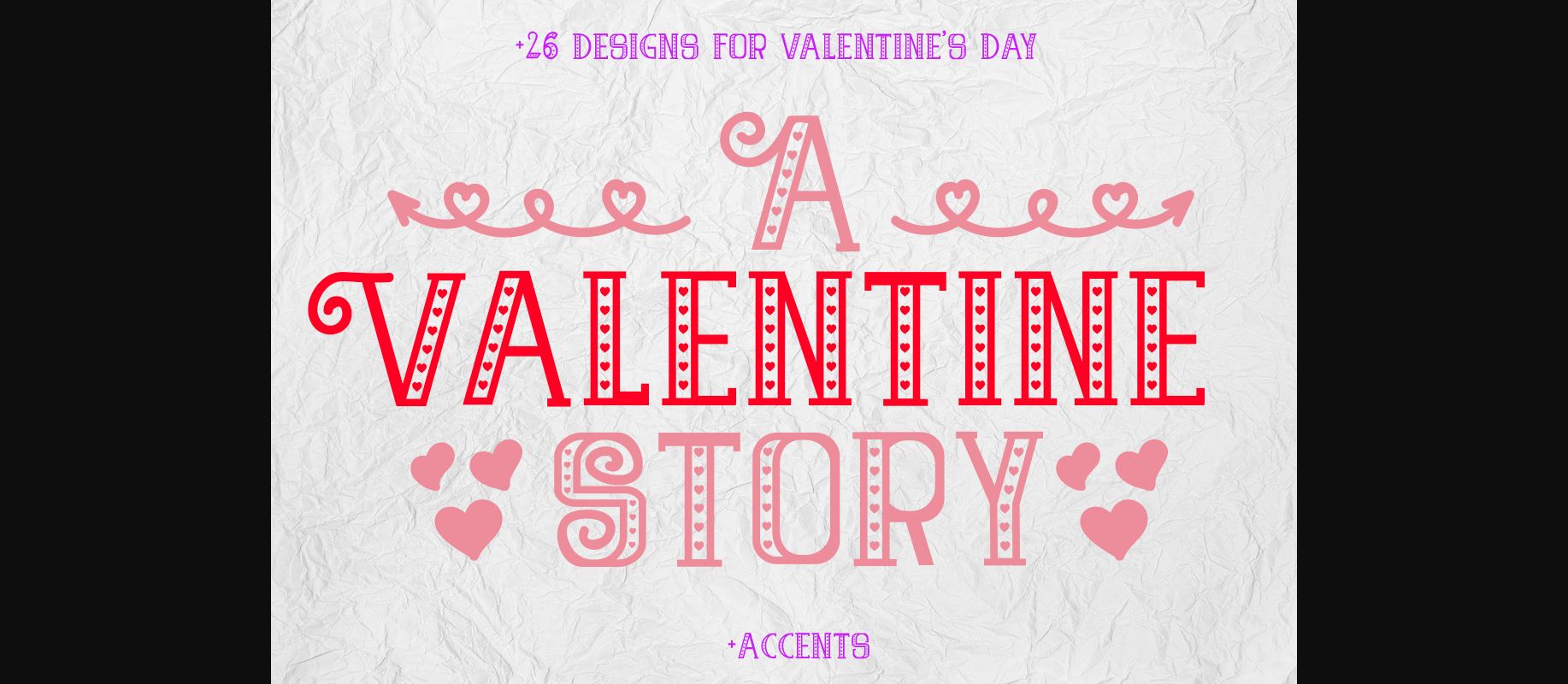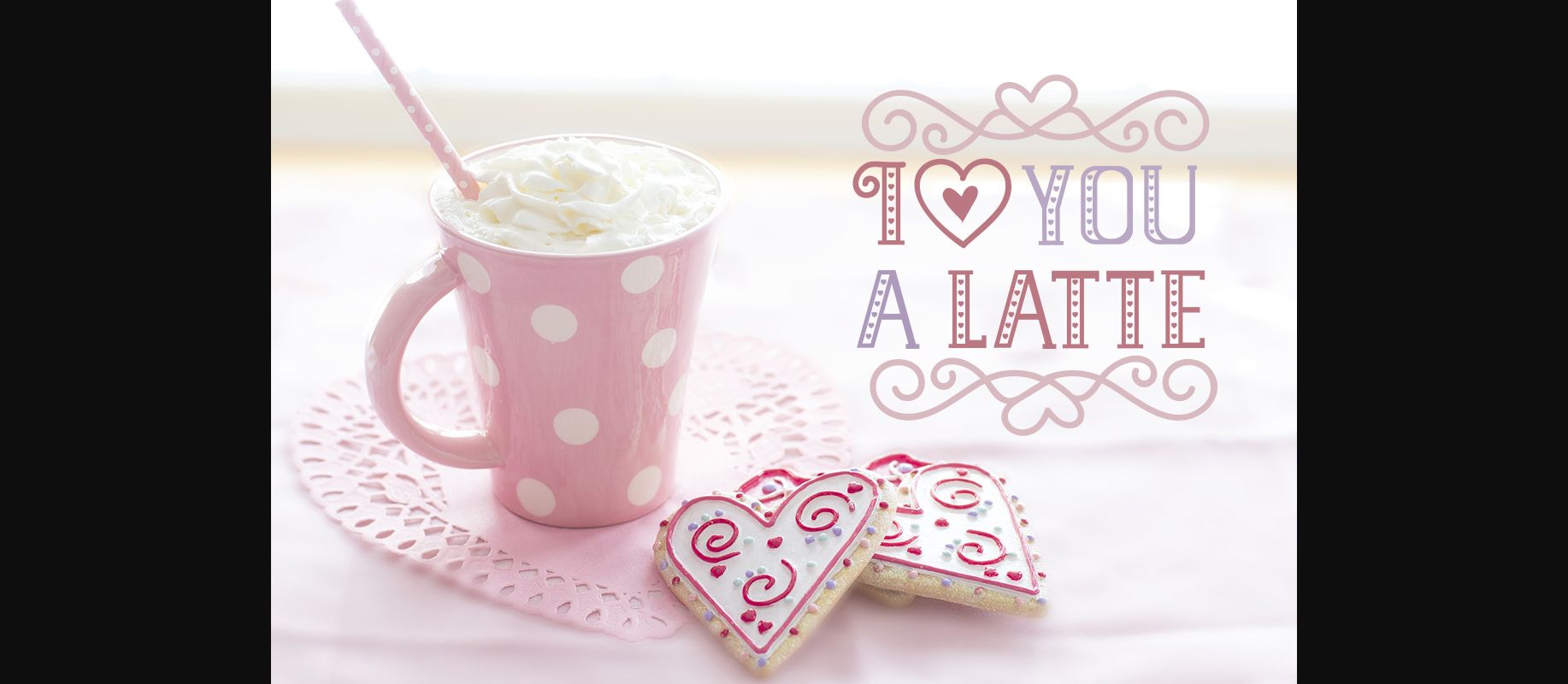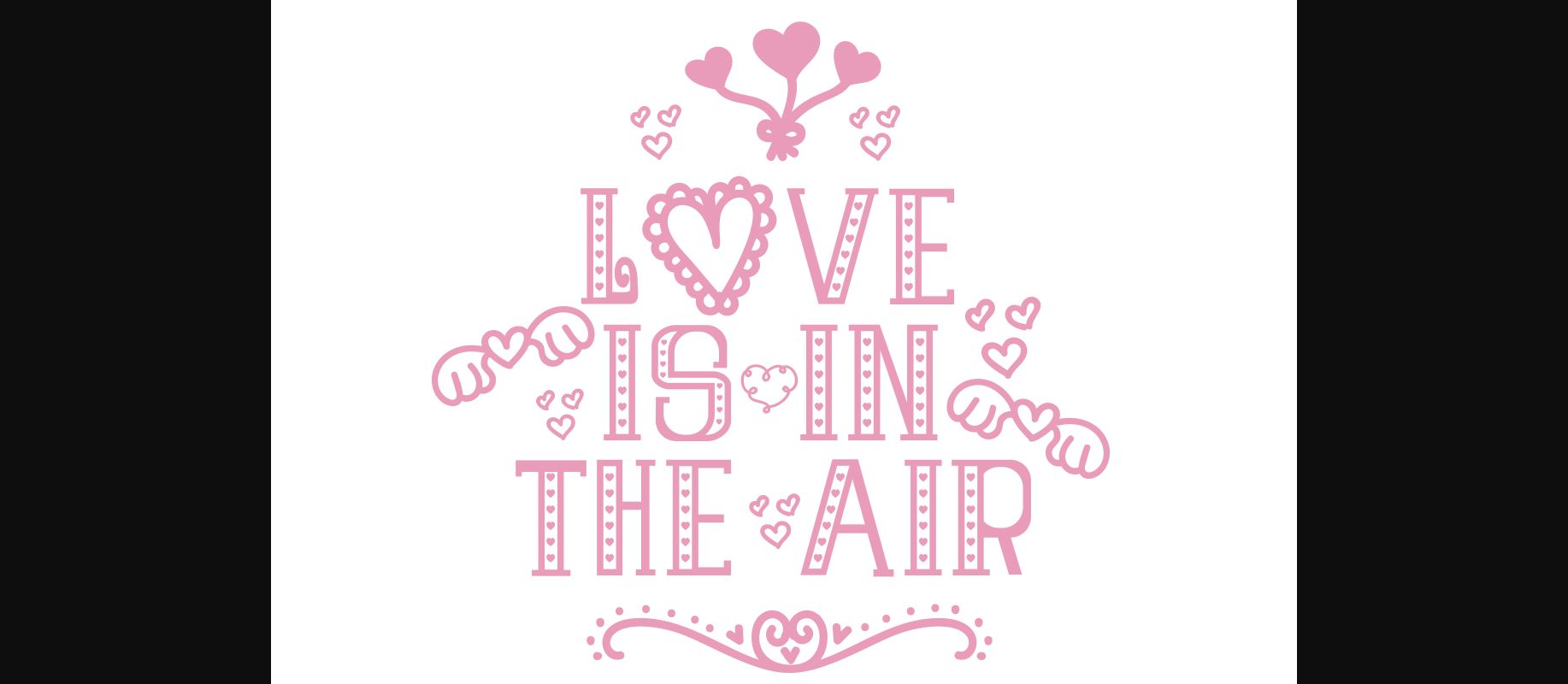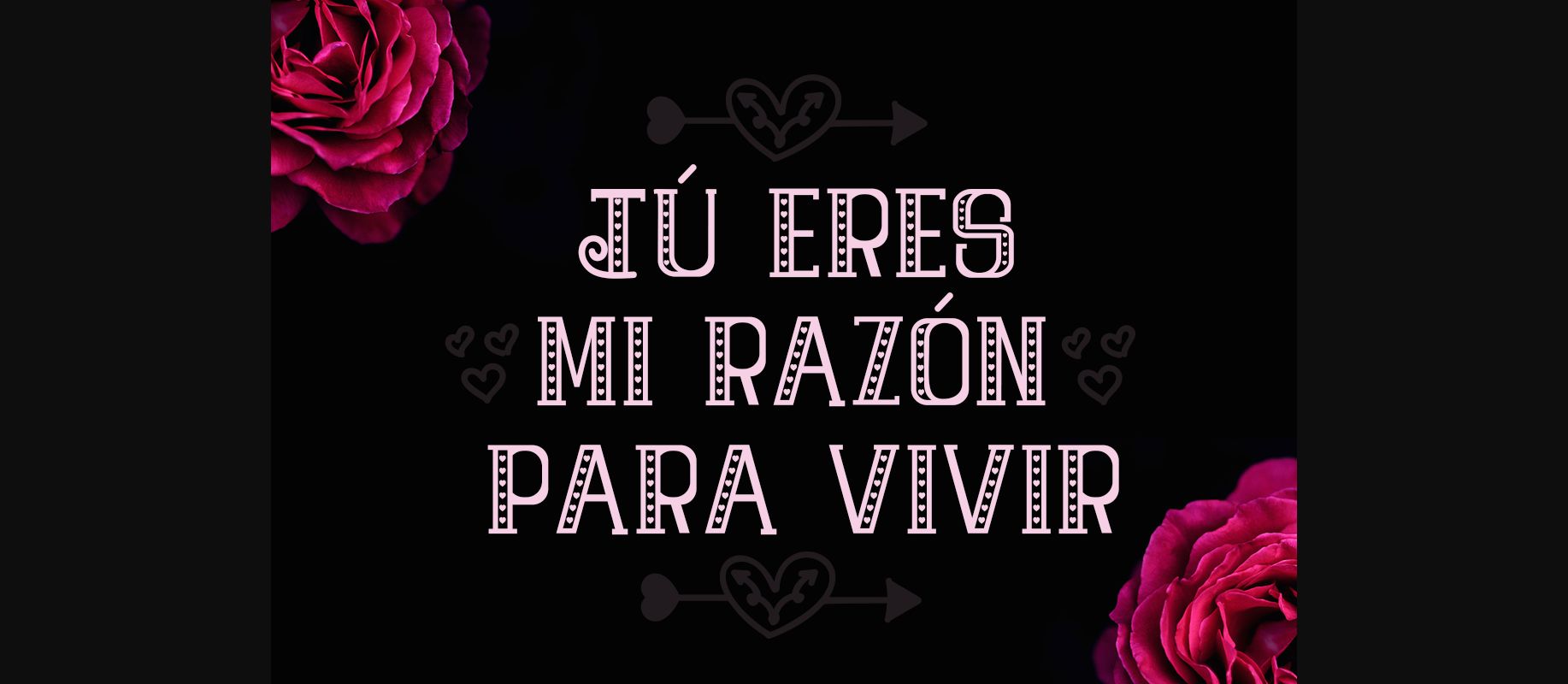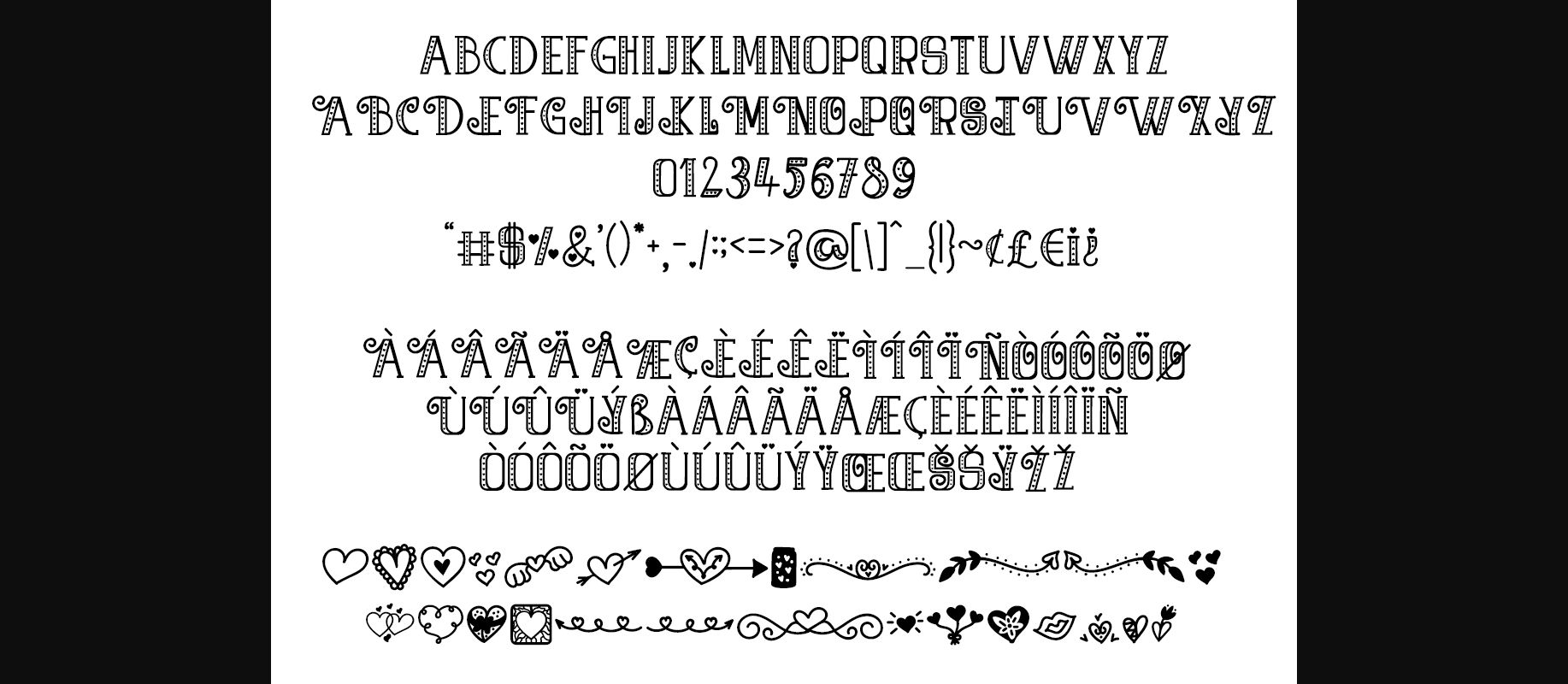
About A Valentine Story Font
The Valentine Story is a lovely font decorated with hearts for Valentines Day.
It comes with accents and 26 dingbats for creating beautiful and lovely original designs.
The Valentine Story is a lovely font decorated with hearts for Valentines Day.
It comes with accents and 26 dingbats for creating beautiful and lovely original designs.